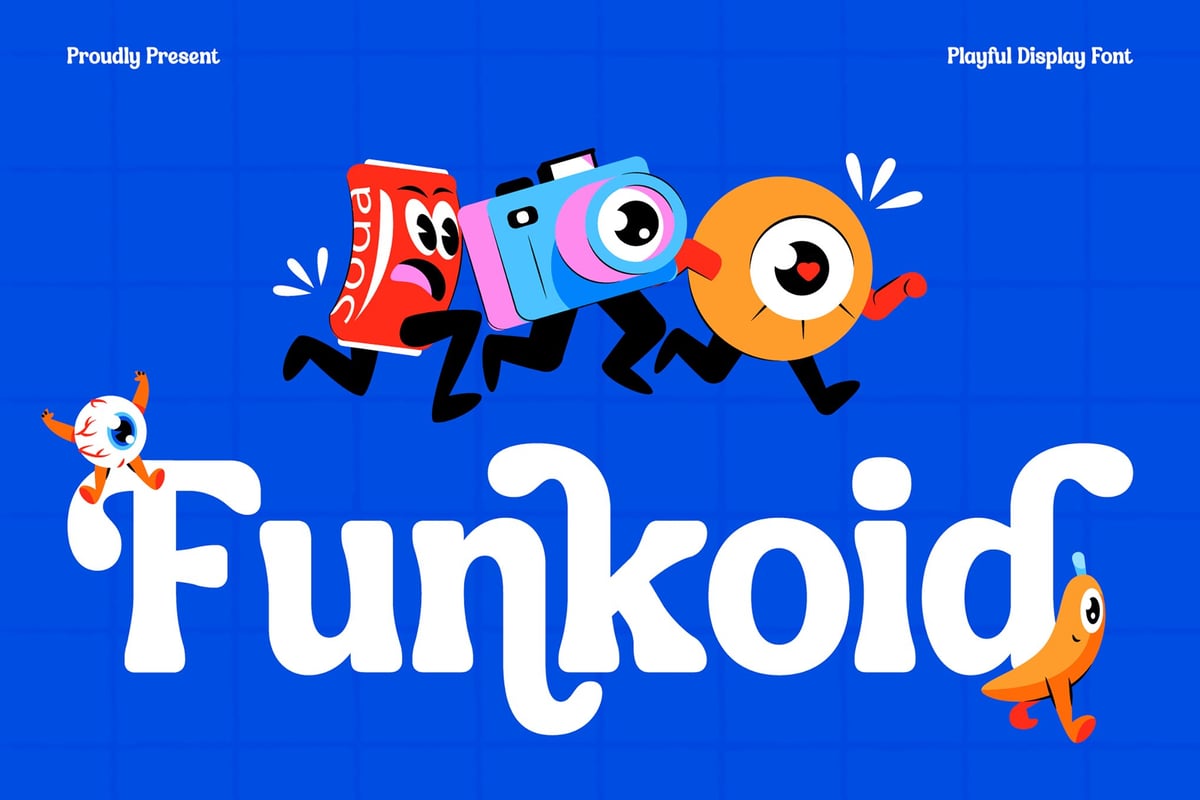
Funkoid – Playful Bold Display Font
Bring instant joy and personality to your designs with Funkoid's bold, playful charm.
Funkoid is a bold and playful display font featuring rounded shapes and cheerful character, designed to inject fun and personality into your creative projects. Its friendly letterforms and lively style make it perfect for eye-catching headlines and imaginative designs.
This typeface excels in kids' design projects. Funkoid delivers a joyful and approachable aesthetic while maintaining strong readability at large sizes. If you're seeking a font that feels energetic, creative, and expressive, Funkoid is an ideal choice for both digital and print applications.